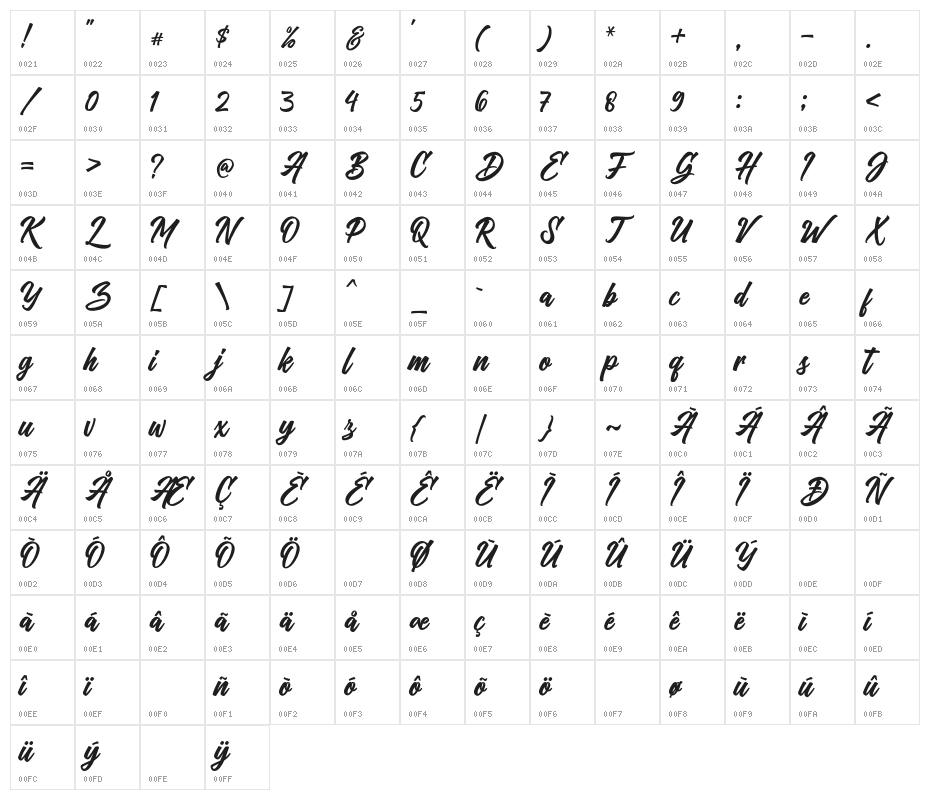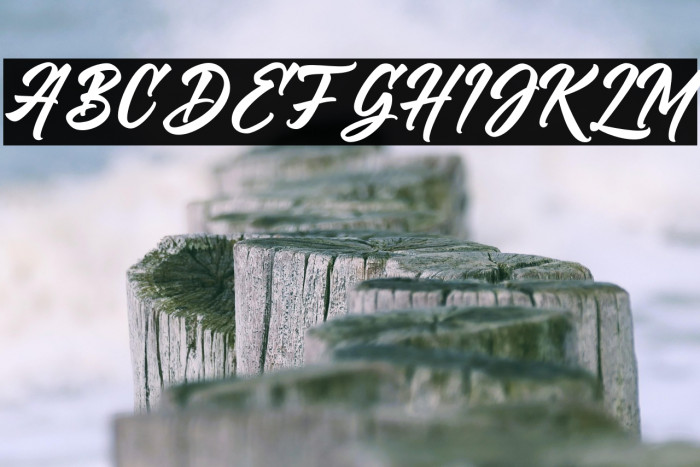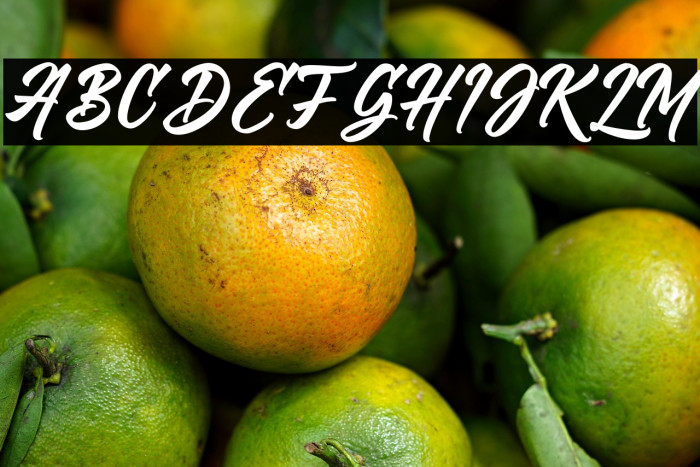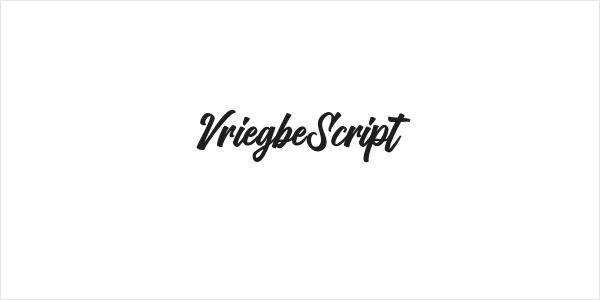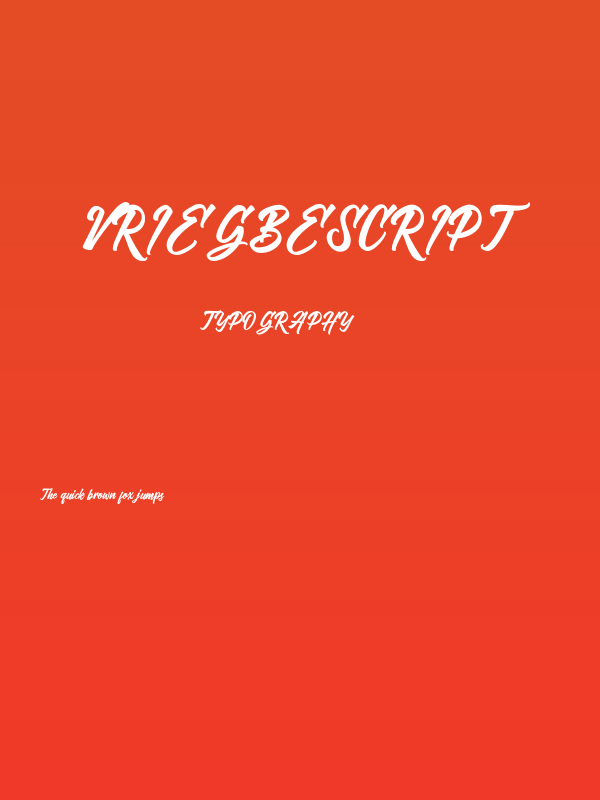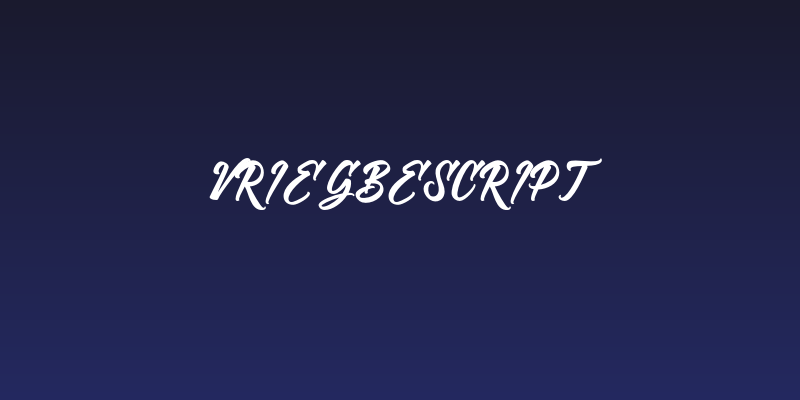
VriegbeScript Font
This font exudes a dynamic and energetic feel with its bold, flowing script style. The characters are connected in a smooth, cursive manner, giving it a handwritten appearance. The uppercase letters are slightly more formal, while the lowercase letters maintain a casual and approachable vibe. The numbers and special characters are consistent with the overall style, ensuring a cohesive look across all text. The strokes are thick and consistent, providing a strong visual impact that is both stylish and legible.
| Use Case | Logos, Invitations, Greeting Cards |
| Proposed Projects | Ideal for branding projects, invitations, greeting cards, and any design that requires a personal touch. |